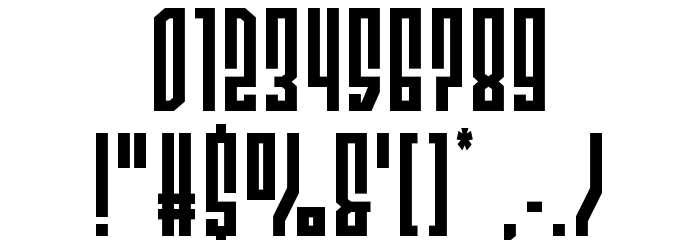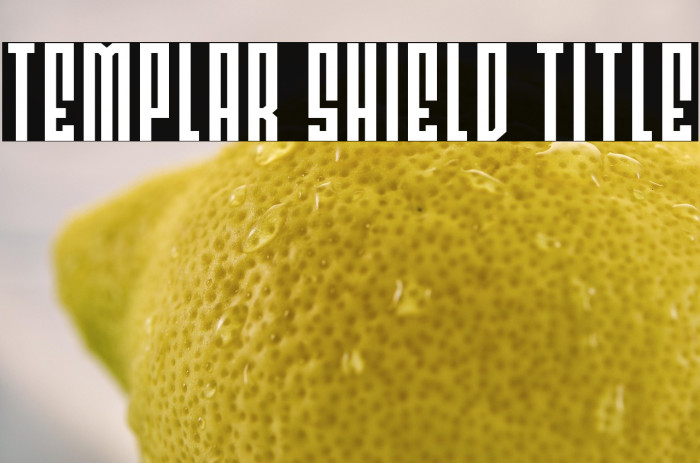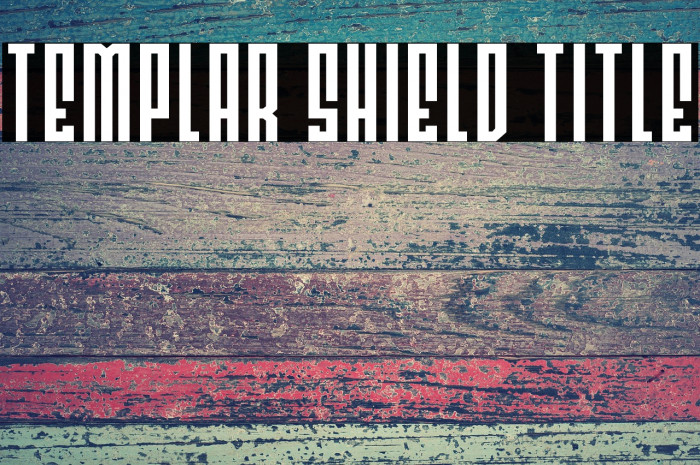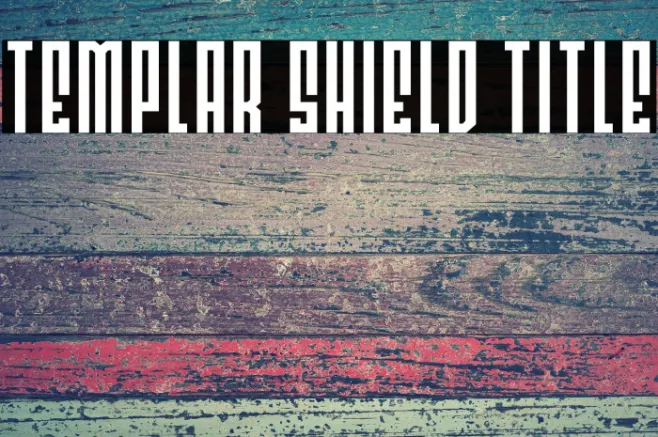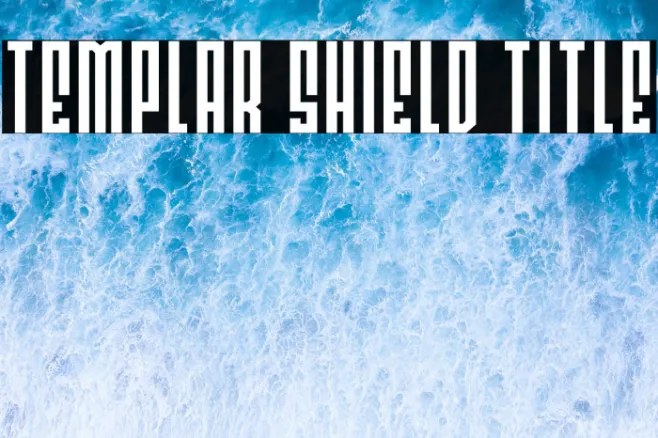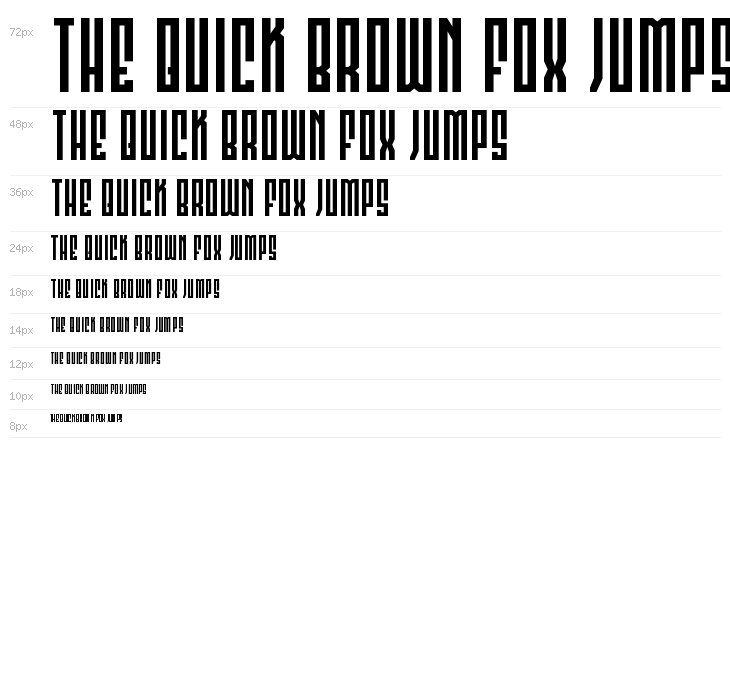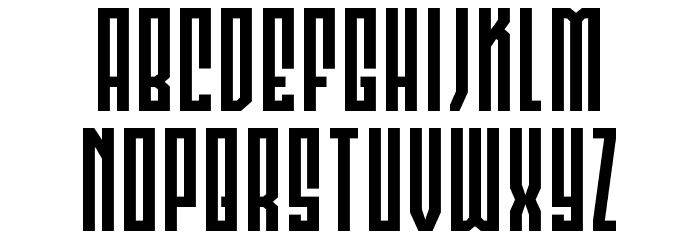
Templar Shield Title Font
Templar Shield Title Description
This font features a bold and striking design with a medieval flair, characterized by its tall, narrow letters and sharp, angular edges. The uppercase letters dominate the design, giving it a commanding presence. The numbers and special characters maintain the same boldness, ensuring consistency throughout. The font's geometric structure and uniform line thickness contribute to its strong visual impact, making it ideal for attention-grabbing titles and headings. Its unique style evokes a sense of history and tradition, reminiscent of ancient scripts and heraldic symbols.
| Proposed Projects | Ideal for historical or fantasy-themed projects, book covers, movie titles, and gaming graphics. |